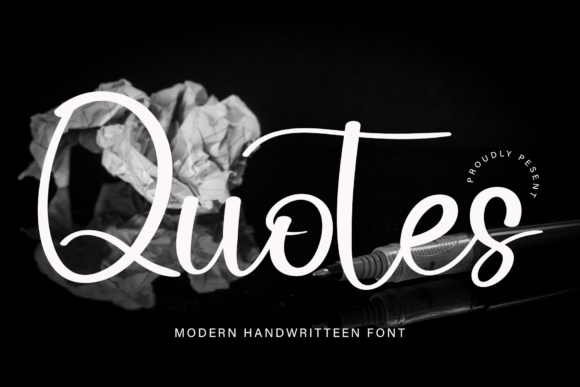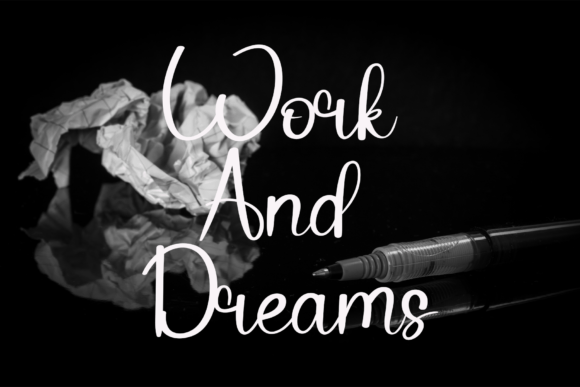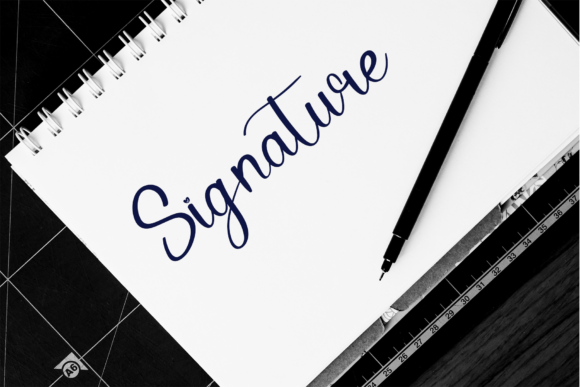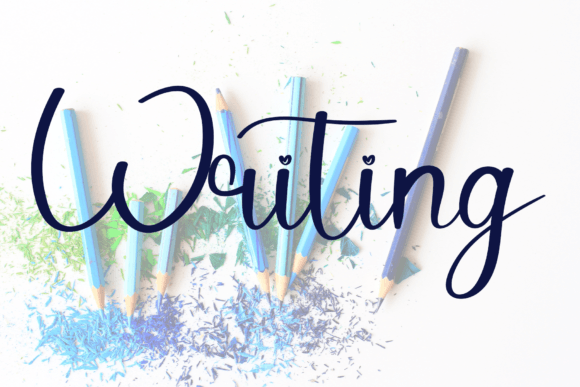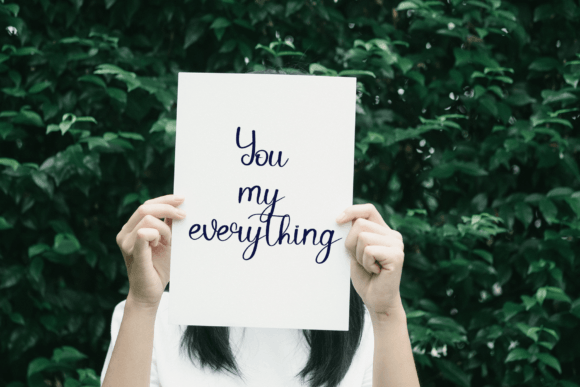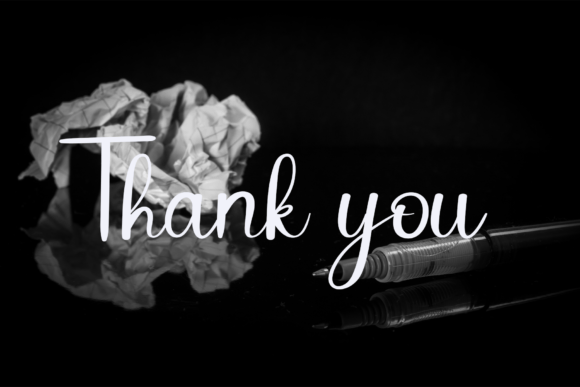
Quotes Font
About Quotes Font
“Quotes” is a delightful and beautiful handwritten font that adds a touch of sweetness and luxury to your design projects. With characters that gracefully dance along the baseline, this font brings a sense of elegance and sophistication to any creative endeavor.
The handwritten charm of “Quotes” makes it well-suited for a variety of applications, especially those where a personal and artistic touch is desired. Imagine using it for crafting inspirational quotes, where the characters’ dance enhances the visual impact of the words. Visualize its application in luxury branding or invitations, where the font’s graceful script adds a touch of refinement.
The flowing and rhythmic baseline of “Quotes” introduces a dynamic quality to your text, making it visually engaging and captivating. This characteristic makes it ideal for projects that aim to evoke emotion or create a memorable impression.
The font’s versatility extends beyond digital platforms to tangible materials, making it suitable for print designs as well. Whether on packaging, stationery, or promotional materials, “Quotes” can bring a sense of luxury and beauty to the physical realm.
In summary, “Quotes” is more than just a font; it’s a design element that elevates your projects with sweetness and luxury. Its handwritten elegance and dynamic baseline make it a versatile choice for a range of creative applications. Let “Quotes” be the spark that enhances the beauty and sophistication of your design projects.